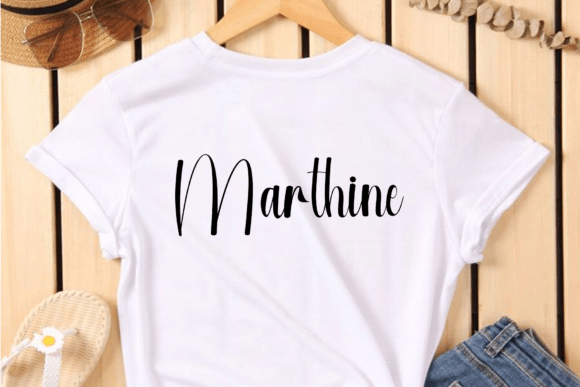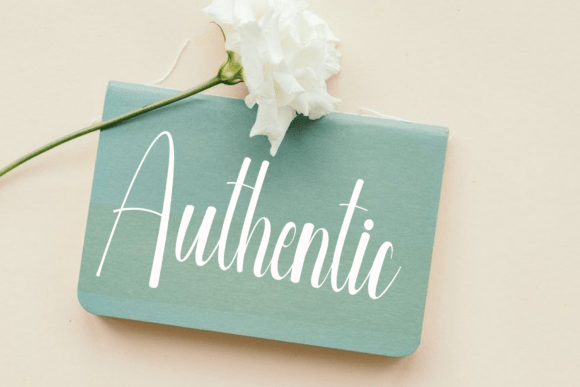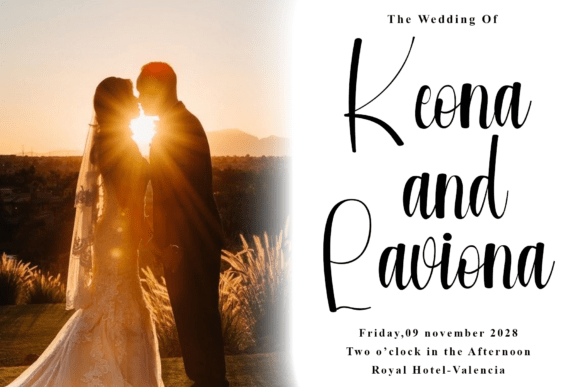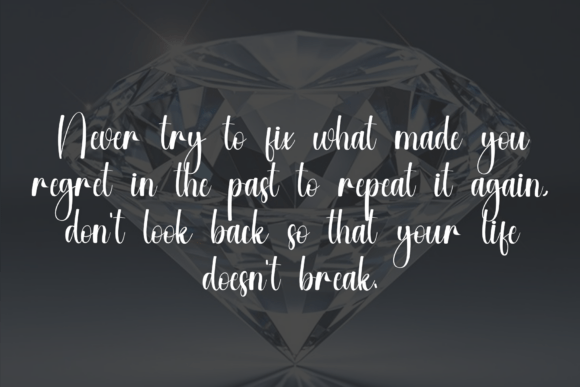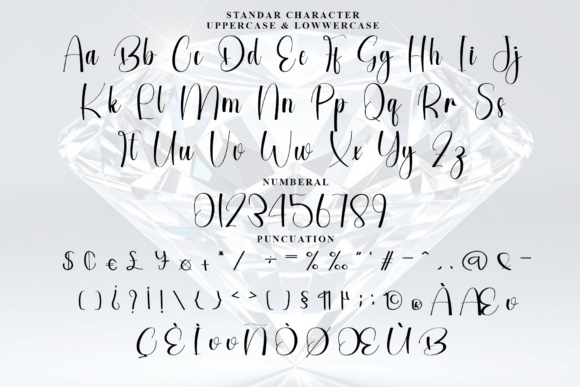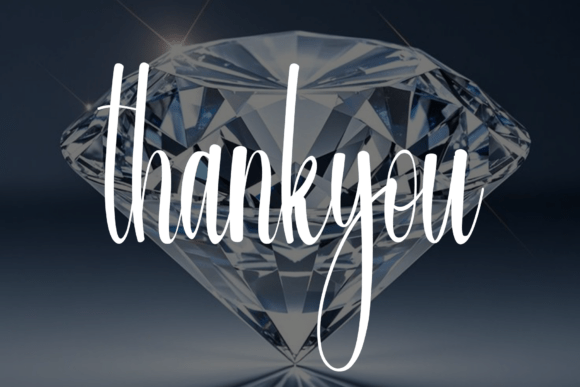
Diamond Font: Elevate Your Design with a Sophisticated Autumnal Script
In the world of typography, few fonts capture the essence of autumn as elegantly as Diamond Font. This modern script font is a masterful blend of sophistication and rhythm, making it an ideal choice for designers and crafters looking to infuse their projects with a unique and professional visual voice. As part of a curated collection of handwritten fonts, Diamond Font stands out with its high-contrast strokes, vertically elongated letterforms, and graceful, looping ascenders that evoke the finesse of high-end inkwork.
The Characteristics of Diamond Font
Diamond Font is distinguished by its thick, grounded downstrokes and delicate hairline connectors, which together create a striking contrast that adds depth and character to any design. The font’s high-contrast strokes are a hallmark of its sophisticated aesthetic, lending an air of elegance and refinement to text. This is particularly evident in the way the font’s vertically elongated letterforms seem to dance across the page, their graceful loops and curves mimicking the fluidity of handwritten ink.
One of the defining features of Diamond Font is its autumnal visual voice. The font’s warm, rich tones and organic feel evoke the cozy, rustic charm of the season, making it an excellent choice for projects that require a seasonal or harvest-themed aesthetic. Whether you’re designing marketing materials for a seasonal campaign, creating artisanal food packaging, or crafting boutique event invitations, Diamond Font provides a versatile and sophisticated solution.
Applications of Diamond Font
Diamond Font’s versatility and elegance make it suitable for a wide range of applications. Here are a few ideas to get you started:
- Seasonal Autumn Marketing: Use Diamond Font to create eye-catching marketing materials that capture the essence of autumn. From social media graphics to print ads, this font is sure to add a touch of sophistication and seasonal charm to your campaigns.
- Artisanal Food Packaging: Diamond Font is an excellent choice for food packaging that requires a personal, artisanal touch. Use it to create labels, packaging inserts, or even custom wrappers that reflect the high-quality, small-batch nature of your products.
- Boutique Event Invitations: Make your event invitations stand out with Diamond Font’s elegant, handwritten aesthetic. Whether you’re planning a wedding, harvest festival, or corporate event, this font is sure to impress your guests and set the tone for a sophisticated, memorable experience.
- Sophisticated Editorial Headers: Add a touch of luxury to your editorial content with Diamond Font’s refined, high-end aesthetic. Use it to create eye-catching headers, titles, or even pull quotes that elevate your content and engage your readers.
Why Choose Diamond Font?
With so many fonts available, why choose Diamond Font for your design projects? Here are a few compelling reasons:
- Unique and Professional: Diamond Font offers a unique and professional visual voice that sets it apart from more generic fonts. Its sophisticated aesthetic and autumnal charm make it an excellent choice for designers and crafters looking to create high-end designs.
- Versatile: Whether you’re designing marketing materials, packaging, invitations, or editorial content, Diamond Font is a versatile solution that adapts to a wide range of applications and design styles.
- Elegant and Refined: Diamond Font’s elegant, refined aesthetic makes it an excellent choice for projects that require a touch of luxury and sophistication. Its high-contrast strokes, looping ascenders, and vertically elongated letterforms create a truly eye-catching effect.
In conclusion, Diamond Font is a premier asset for designers and crafters looking to elevate their projects with a sophisticated, autumnal script font. Its unique and professional visual voice, versatile applications, and elegant aesthetic make it an excellent choice for a wide range of design projects. Whether you’re creating seasonal marketing materials, artisanal food packaging, boutique event invitations, or sophisticated editorial headers, Diamond Font is sure to impress.